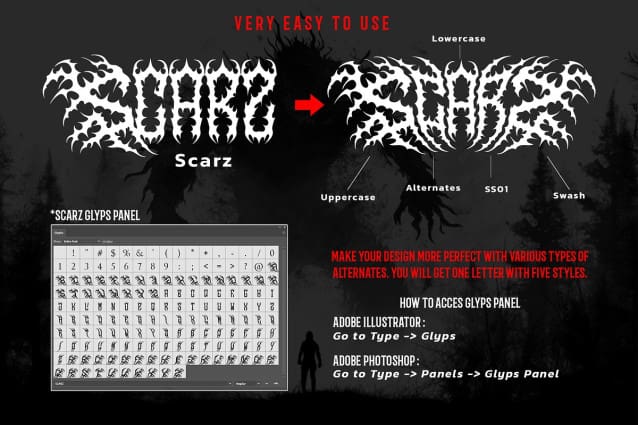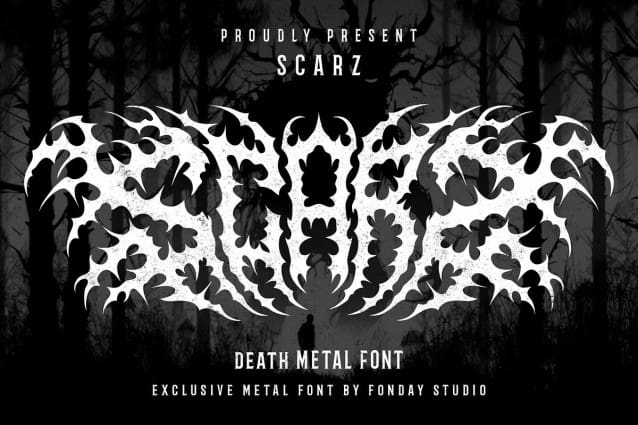
Scarz Death Metal Font
Scarz Death Metal Font a cutting-edge font designed exclusively for music metal bands. Embrace the dark, rebellious spirit of your music with the intense and jagged letterforms of Scarz. This font captures the essence of the metal genre, showcasing a fusion of power, aggression, and edgy aesthetics.
With its bold strokes, sharp angles, and intricate details, Scarz adds a unique and menacing touch to your band’s visual identity. Whether it’s for album artwork, band logos, or promotional materials, SCARZ will make your name scream with an unyielding intensity.